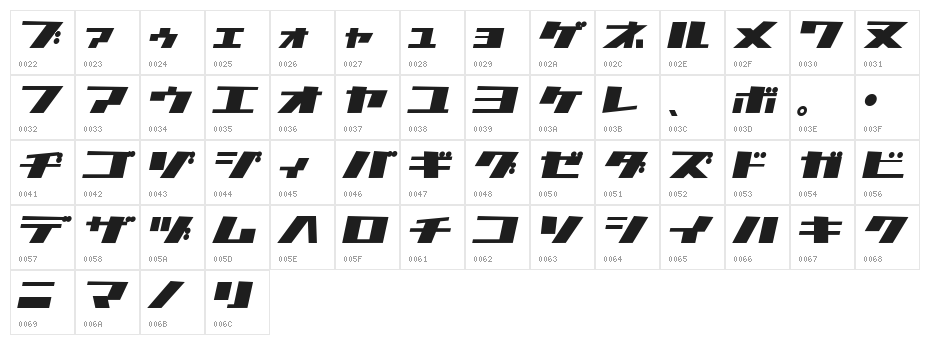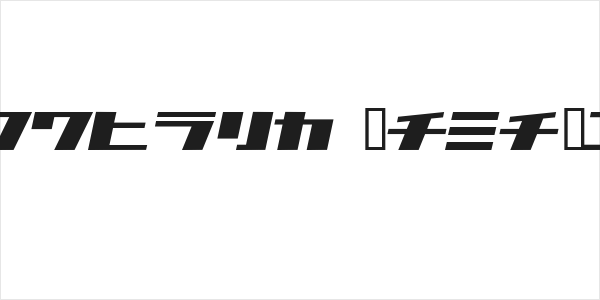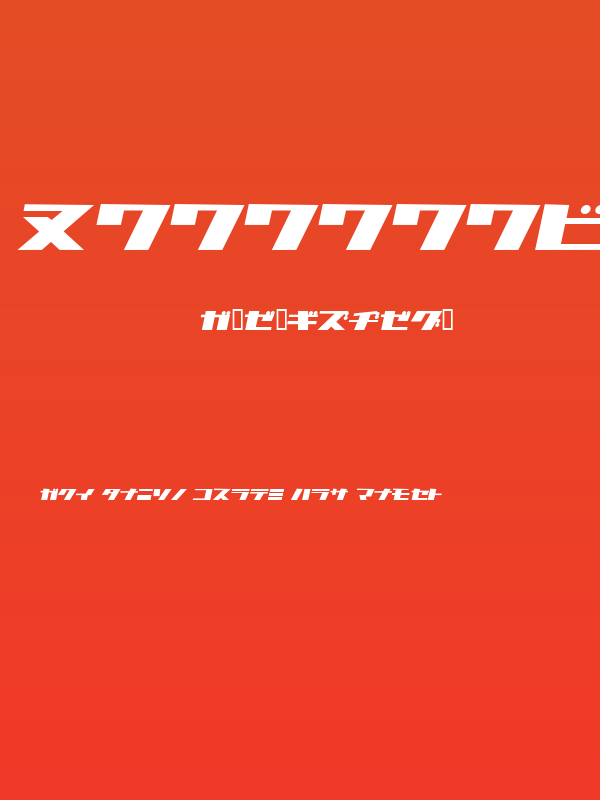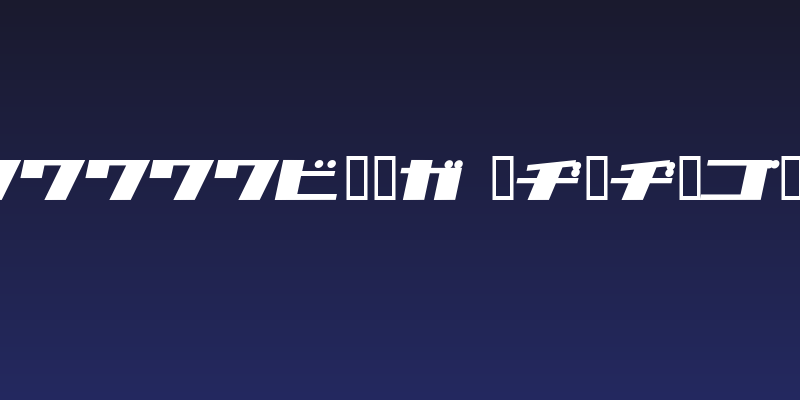
1000000volt KanaOblique Font
1000000volt KanaOblique Description
This font features a bold and dynamic style with a distinct oblique slant, giving it a sense of motion and energy. The characters are wide and have a strong presence, making them suitable for impactful designs. The strokes are thick and consistent, providing a uniform appearance across all characters. The font's geometric shapes and sharp angles contribute to its modern and futuristic aesthetic. It is well-suited for creative projects that require a bold statement, such as posters, headlines, and branding materials. The spacing between characters is tight, enhancing its compact and cohesive look.
| Proposed Projects | Ideal for posters, headlines, branding, and any design needing a bold, futuristic look. |